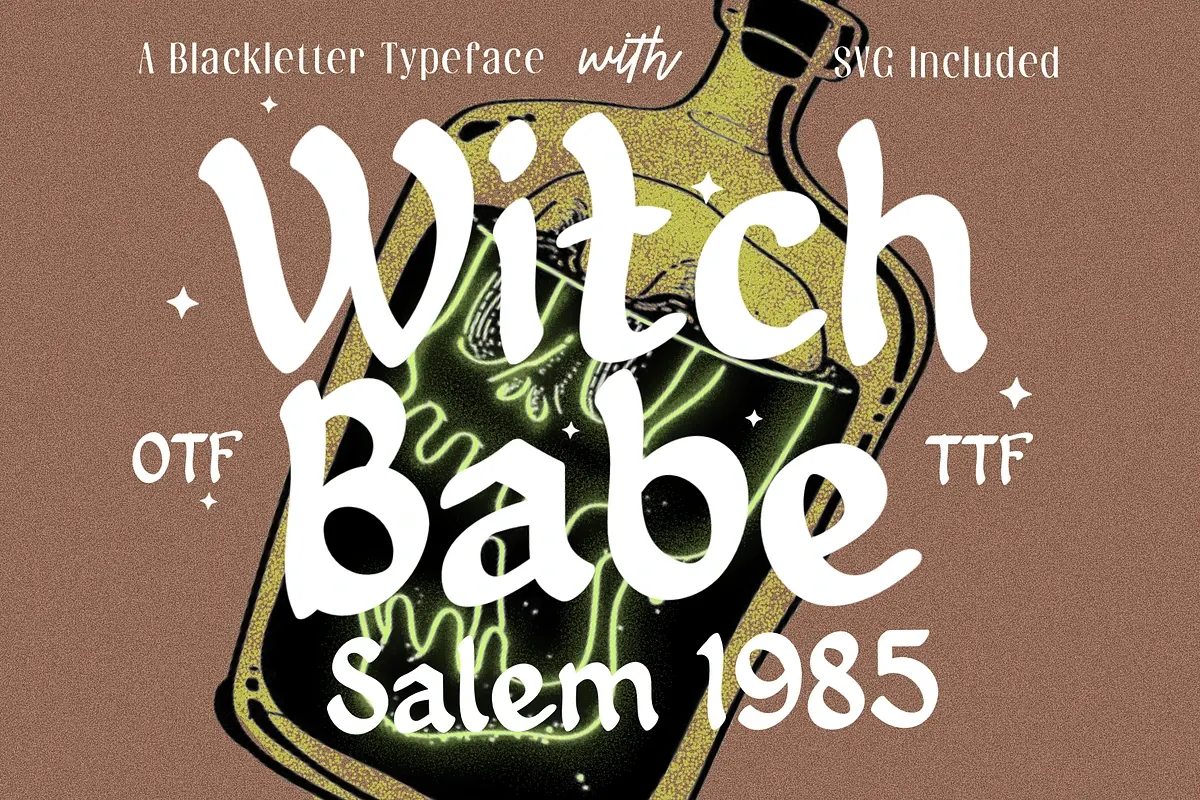
Witch Babe - Sans Serif Blackletter Free Download
Witch Babe – Sans Serif Blackletter Font Free Download is a bold and edgy typeface that fuses gothic blackletter roots with clean, modern sans-serif structure. Please note, you are required to purchase this font for commercial use. It is available for free download for testing and personal projects only.
Perfect for streetwear branding, music artwork, tattoo-inspired designs, posters, and alternative fashion labels, Witch Babe delivers a powerful visual punch with its sharp lines and rebellious energy. It’s a unique blend of dark aesthetics and contemporary readability—ideal for projects that push boundaries.
By choosing Witch Babe – Sans Serif Blackletter Font Free Download, you’re adding a distinctive, high-impact font to your design arsenal. It installs easily and works smoothly across all major design platforms. Whether you're creating bold headlines or grunge-inspired visuals, Witch Babe sets the tone with fearless style.